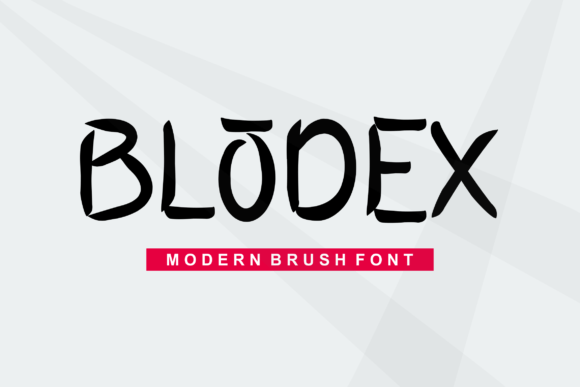
The Blodex Font: A Sweet and Friendly Companion for Your Designs
Have you ever been in the middle of a design project, and suddenly, you’re stuck on finding the perfect font? I recall a recent experience where I was working on a whimsical craft project, and my client’s request was to make it feel “warm and fuzzy.” I scoured through my font library, but nothing seemed quite right. That’s when I stumbled upon the Blodex font, and it instantly became the perfect fit. In this article, I’ll share my journey with Blodex, its unique features, and how you can make the most of it in your designs.
A Personal Review: What I Love About Blodex
Blodex is a sweet and friendly handwritten font that has quickly become a favorite in my design toolkit. Here are some things I love about it:
• ✨ Natural and Unique Style: Blodex has a distinct, hand-crafted feel that makes it incredibly versatile for various design projects.
• ✅ Ease of Use: The font is easy to read and works well in both digital and print formats.
• 💕 Emotional Connection: Blodex has a warm, inviting quality that helps create an emotional connection with your audience.
While Blodex is an excellent font, there are a few minor quirks to be aware of:
• 🤔 Limited Formality: Blodex is a casual, handwritten font, so it might not be the best fit for very formal or corporate designs.
• ⚠️ Glyph Limitations: While Blodex has a range of glyphs and stylistic alternates, it might not have every special character or symbol you need.
The Story Behind Blodex
Blodex was designed with the intention of creating a friendly, approachable font that could bring warmth to any design. Its creator aimed to craft a font that felt like a handwritten note from a friend – a goal that, in my opinion, they’ve successfully achieved.
Font Name Blodex Font
Author kalingga.albert
What makes Blodex unique? Blodex’s natural, handwritten style and unique character set make it stand out from other fonts.
Is Blodex suitable for digital use? Absolutely! Blodex works well in both digital and print formats.
In conclusion, Blodex is a versatile and charming font that can elevate your designs with its unique, handwritten style. With its ease of use and range of OpenType features, it’s an excellent choice for designers, crafters, and creative hobbyists alike.